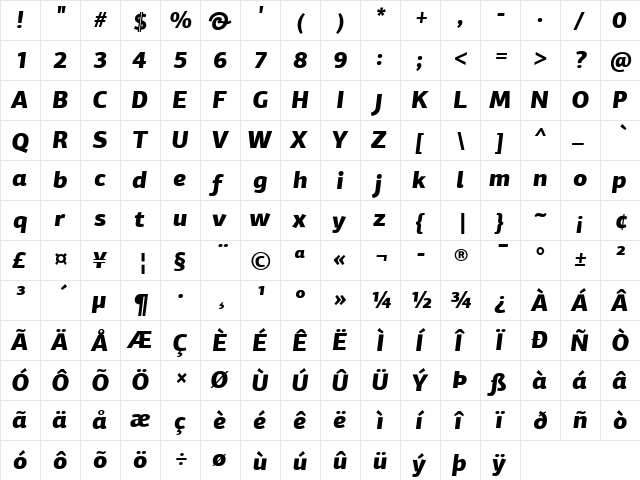
PF Agora Sans Pro Black Italic
| Designer | Panos Vassiliou |
Design Context for PF Agora Sans Pro Typeface
PF Agora Sans Pro is a composed and adaptable typeface that performs quietly and consistently across a wide range of design contexts. The slanted form adds forward momentum and visual energy.
Pro Tip: Use PF Agora Sans Pro for emphasis, pull quotes, and subheadings where its slanted energy can add rhythm to the layout.